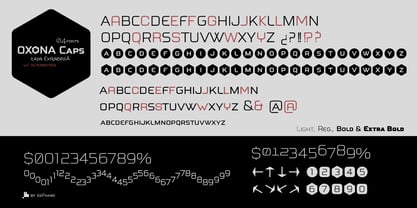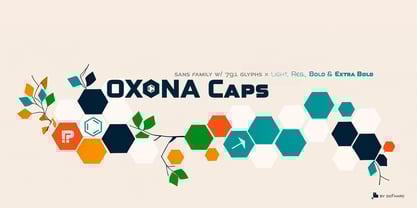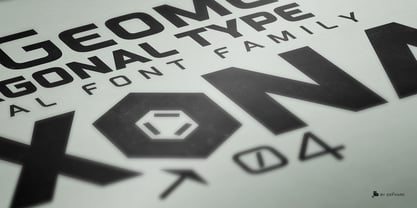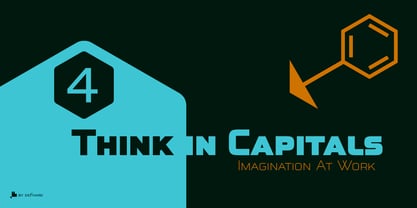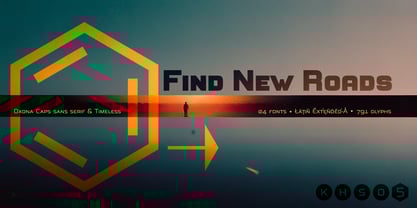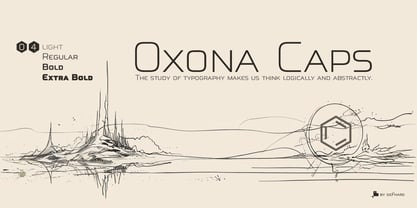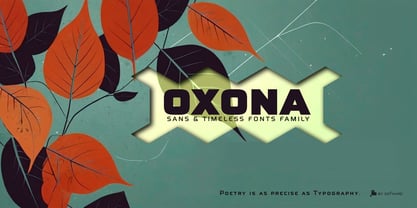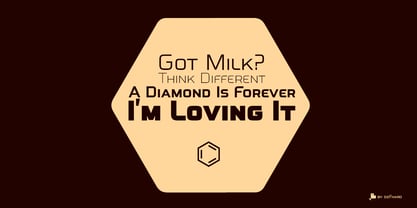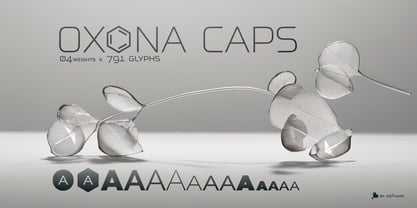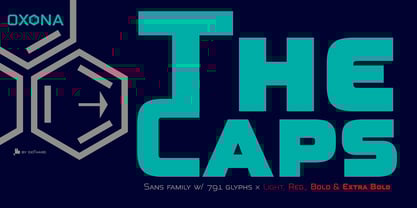
Oxona Caps
The Oxona Caps Font Family was designed by Fernando Haro and published by deFharo. Oxona Caps contains 4 styles and family package options. More about this family
The evolution of typography in capital letters and small caps
Oxona Caps is a renewed and stylized version of the Oxona family. It is a typeface in capital letters and small caps that redefines legibility and visual impact. This typeface retains its futuristic essence, and its geometric structure and refined optical adjustments guarantee a unique visual harmony, ideal for conveying messages with strength and elegance on any medium, whether digital or printed.
Oxona Caps preserves the essence of its predecessor:
• Balanced and precise design: Each letter has been optimized to ensure impeccable and harmonious readability.
• Four weights for maximum versatility: Light, Regular, Bold, and Extra Bold, to adapt to any creative need.
• Compatibility with Latin Extended-A, allowing use in more than 200 languages.
Oxona Caps not only stands out for its aesthetics but also for its attention to detail. Its geometric structure maintains exact proportions, while strategic optical adjustments ensure fluid reading at any size. The absence of serifs reinforces its modern and timeless character, adapting equally effectively to digital and print environments. Meticulous attention to metrics and kerning always prioritize clarity and visual harmony.
Oxona Caps is functionally intelligent. It includes OpenType features that enhance its use:
• Stylistic alternatives for further customization of letters and numbers.
• Fractions and mathematical symbols, ideal for technical or editorial projects.
• Arrows and special characters that enhance signage and infographic creation.